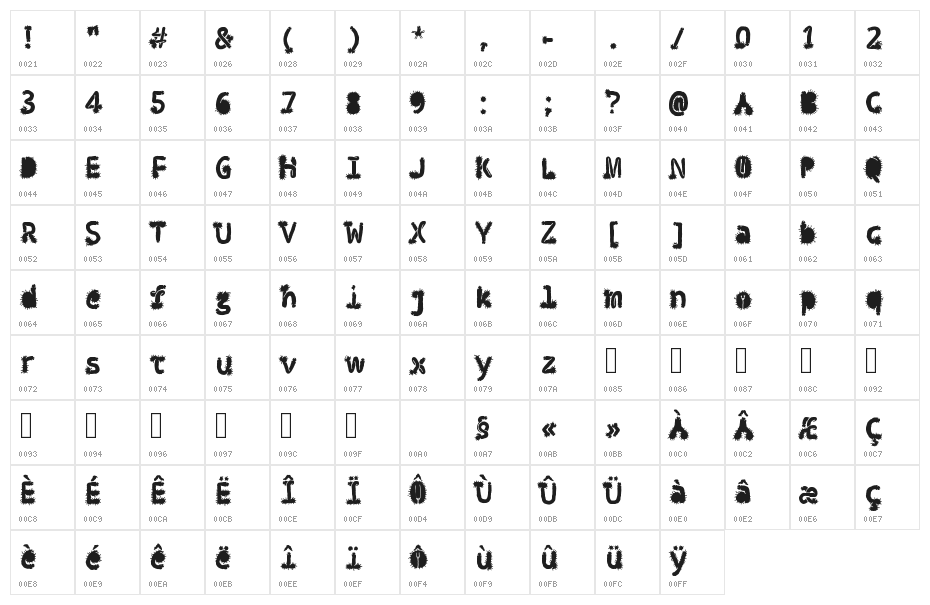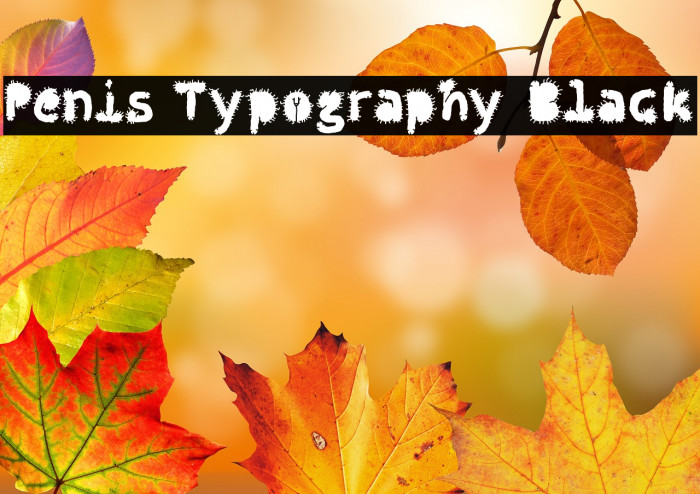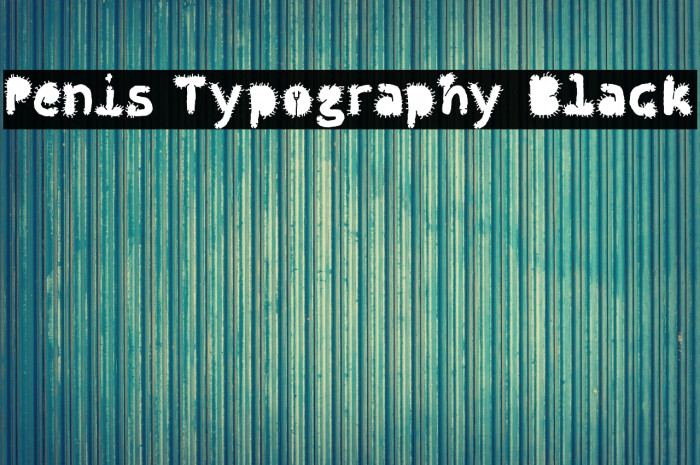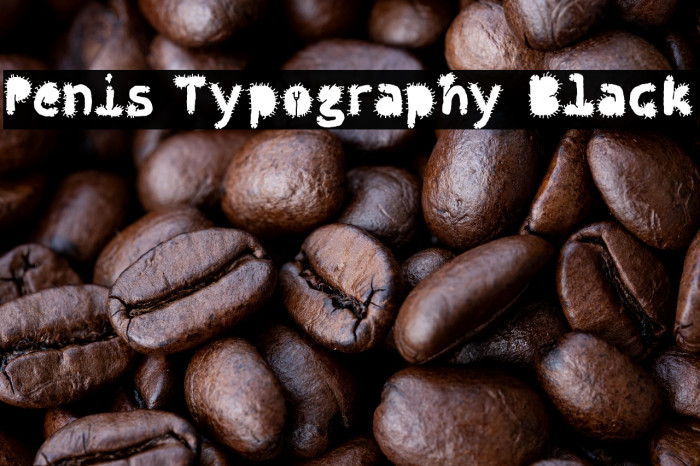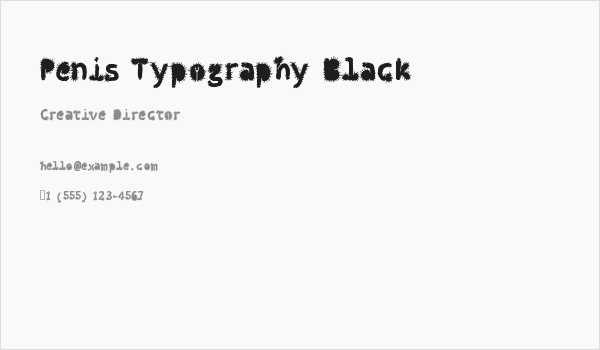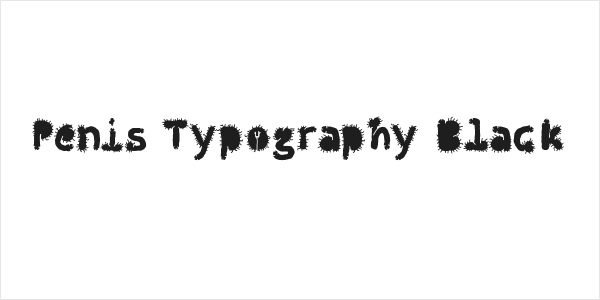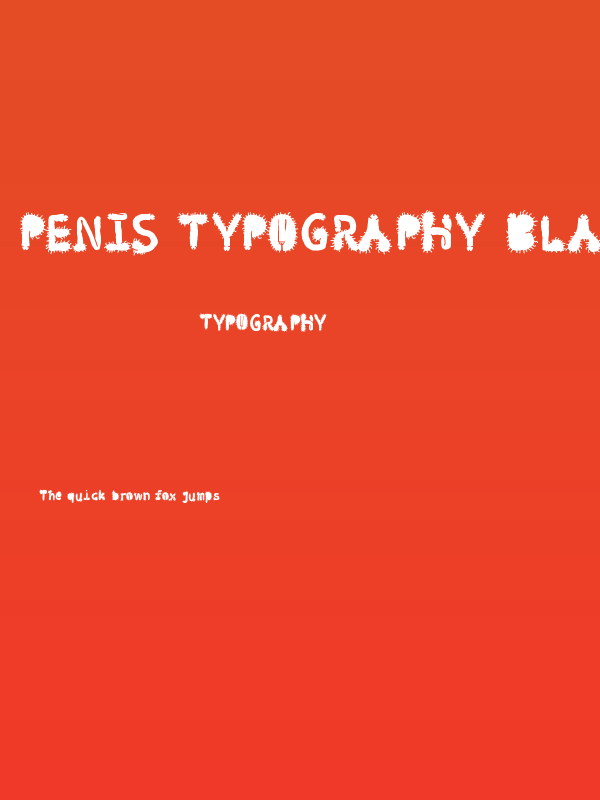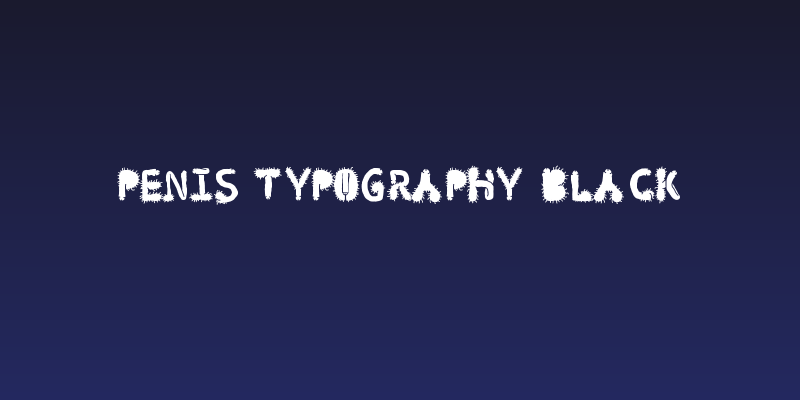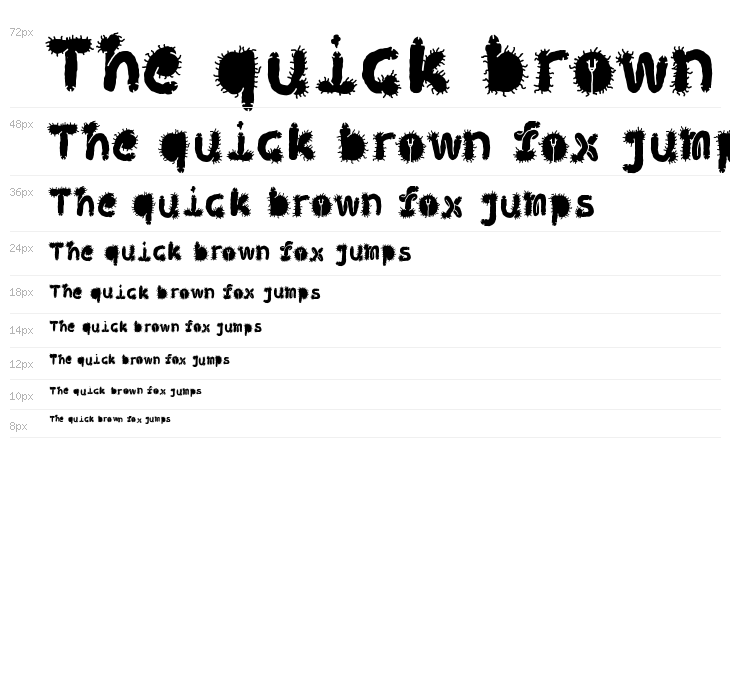
Penis Typography Black Font
Penis Typography Black Description
This font features a bold and playful design with a unique, organic texture that resembles splatters or ink blots. The characters are highly decorative, with irregular edges and a dynamic, energetic feel. Each letter and number is distinct, with a quirky, artistic flair that makes it stand out. The font's style is reminiscent of graffiti or street art, making it ideal for projects that require a bold, unconventional look. The special characters maintain the same playful and textured style, adding to the font's cohesive appearance.
| Proposed Projects | Ideal for posters, album covers, street art-inspired designs, and creative branding projects. |